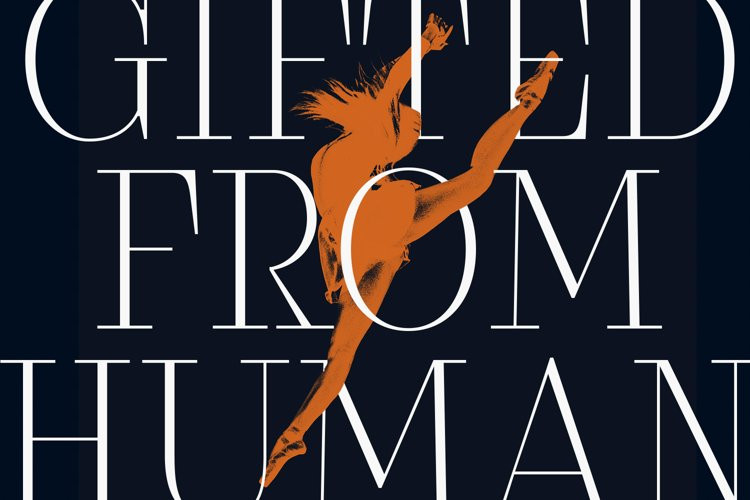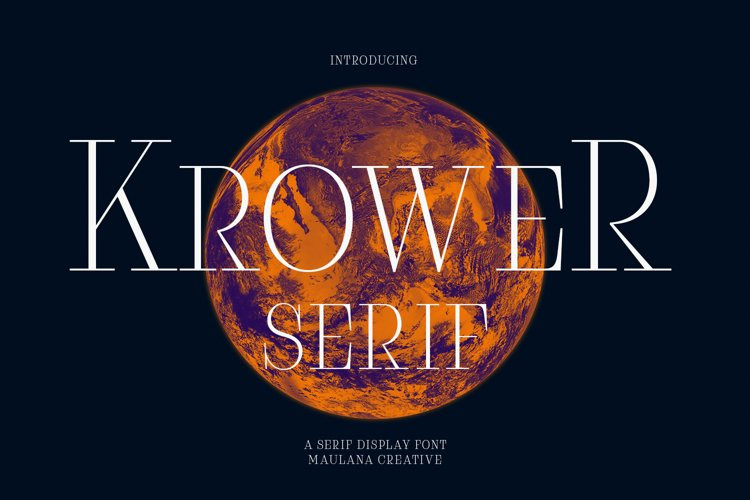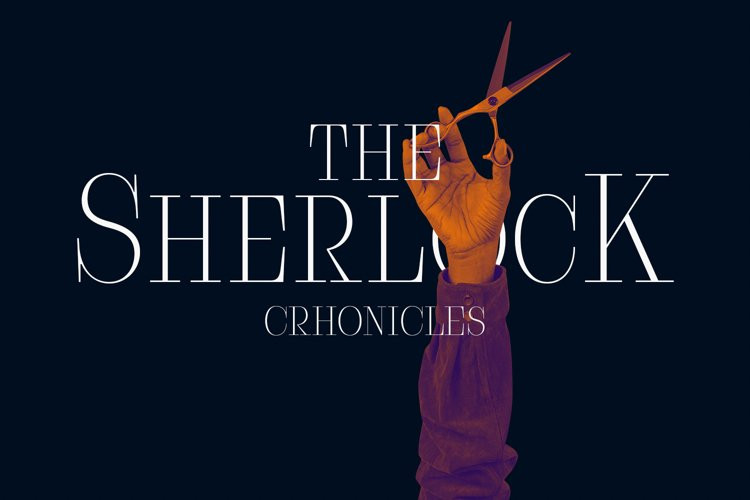
Krower Font
Krower FontKrower is a Caps and Small Caps Display Serif font. With light contrast stroke, Strong character with a bit of ligatures and alternates. To give you an extra creative work. Krower font support multilingual more than 100+ language. This font is good for logo design, Social media, Movie Titles, Books Titles, a short text even a long text letter and good for your secondary text font with sans or script. Make a stunning work with Krower font.